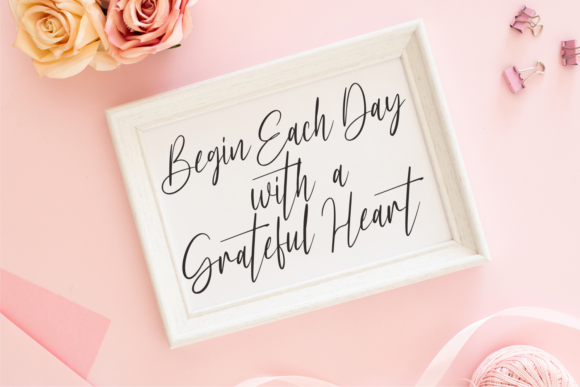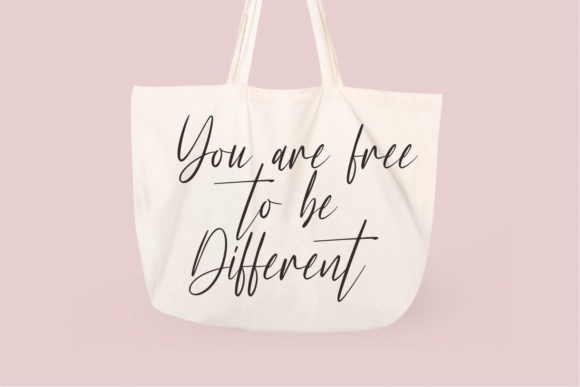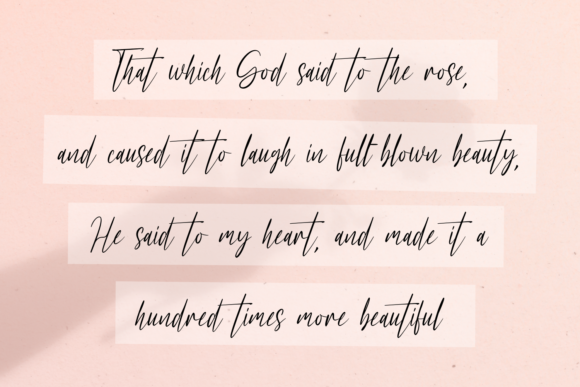
Introduction to Lovely Dealer Font
Have you ever been in the midst of a creative project, pouring your heart and soul into a design, only to feel like something’s missing? A spark of inspiration that’s hard to put into words, but you know exactly what it is – a beautiful, elegant font that elevates your entire design to the next level. For designers, finding that perfect font can be a game-changer, and that’s exactly what Lovely Dealer Font offers.
As a stylish and dainty script font, Lovely Dealer Font is the perfect addition to any design project. Whether you’re creating logos, branding materials, labels, or photography watermarks, this font is sure to bring a touch of sophistication and elegance to your work. And the best part? It’s available for free download, making it an accessible design resource for creatives of all levels.
Key Features of Lovely Dealer Font
- High-quality design resource ideal for creative projects, including logos, branding, and packaging design.
- Features a clean and modern design, perfect for businesses and entrepreneurs seeking a professional image.
- Unique characteristics include elegant script and cursive styles, adding a touch of sophistication to any design project.
Honest Review: Lovely Dealer Font
I recently stumbled upon the Lovely Dealer Font while searching for a design resource for a creative project, and I must say it’s been a game-changer. The font is a high-quality, free download that offers a lot of potential for any designer.
Here are some things that work well with the Lovely Dealer Font:
- ✨ Unique and stylish design that can add a touch of elegance to any project
- ✨ High-quality vector format that ensures crisp and clear rendering
- ✨ Transparent background, making it easy to integrate with any design
- ⚠️ Limited character set, which may not be ideal for projects that require a wide range of characters
Overall, I’m impressed with the Lovely Dealer Font and would recommend it to designers looking for a high-quality, free font. However, it’s essential to be aware of its limitations and ensure it meets your project’s requirements.
Is the Lovely Dealer Font suitable for designs with transparent backgrounds?
Yes, the Lovely Dealer Font has a transparent background, making it perfect for designs where you want to create a seamless and modern look. The font is also designed to work well with high-quality images and graphics, ensuring that your design looks professional and polished.